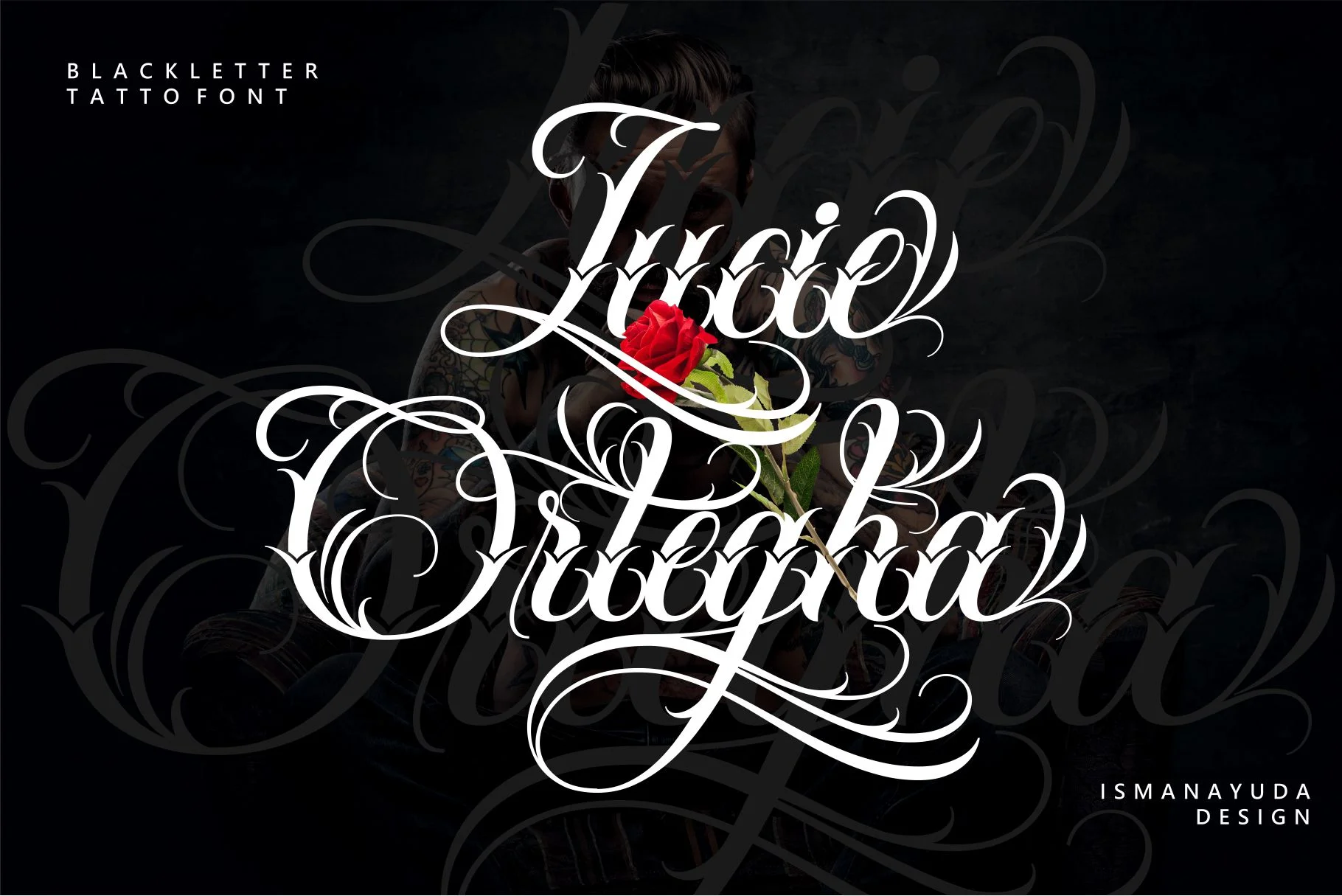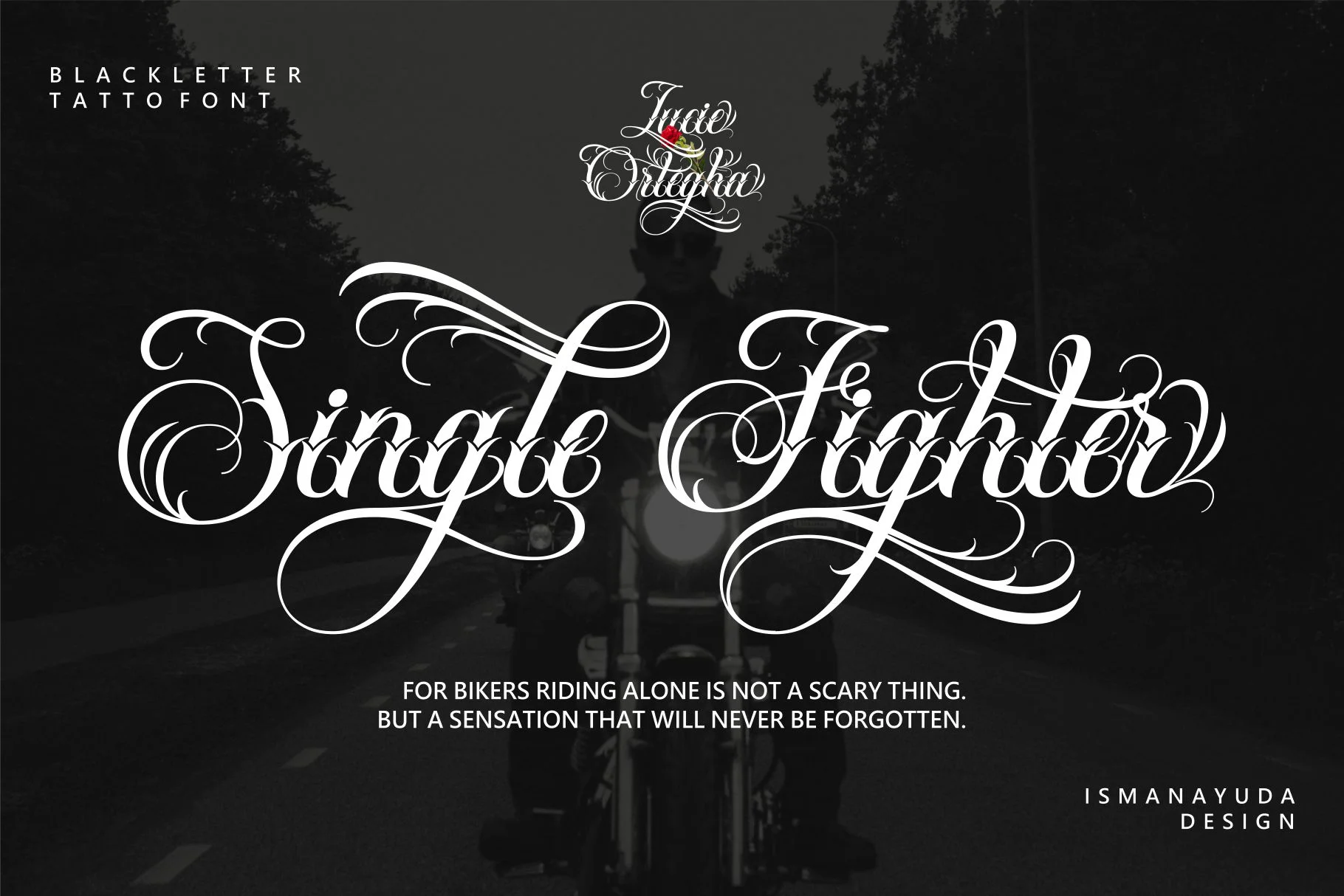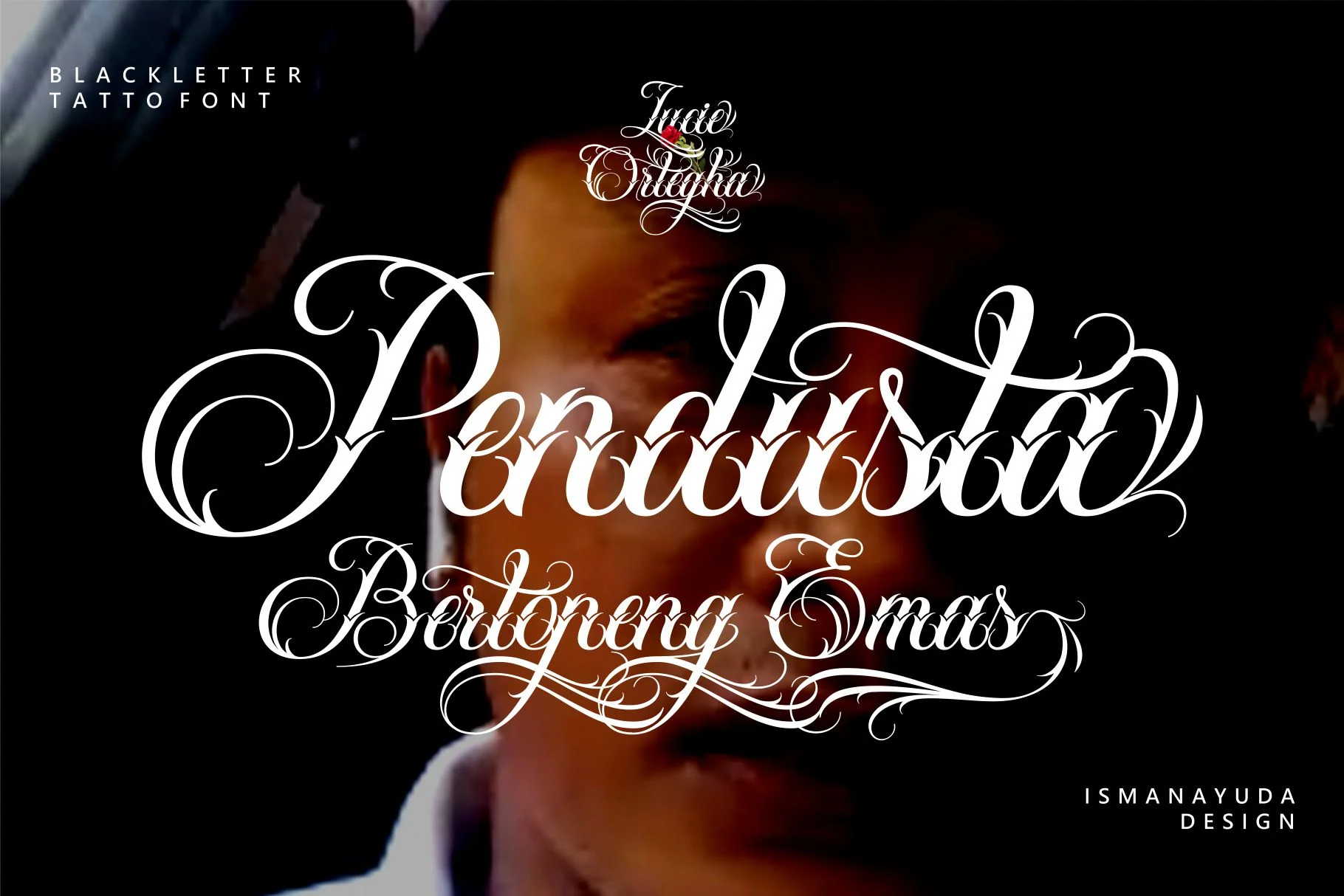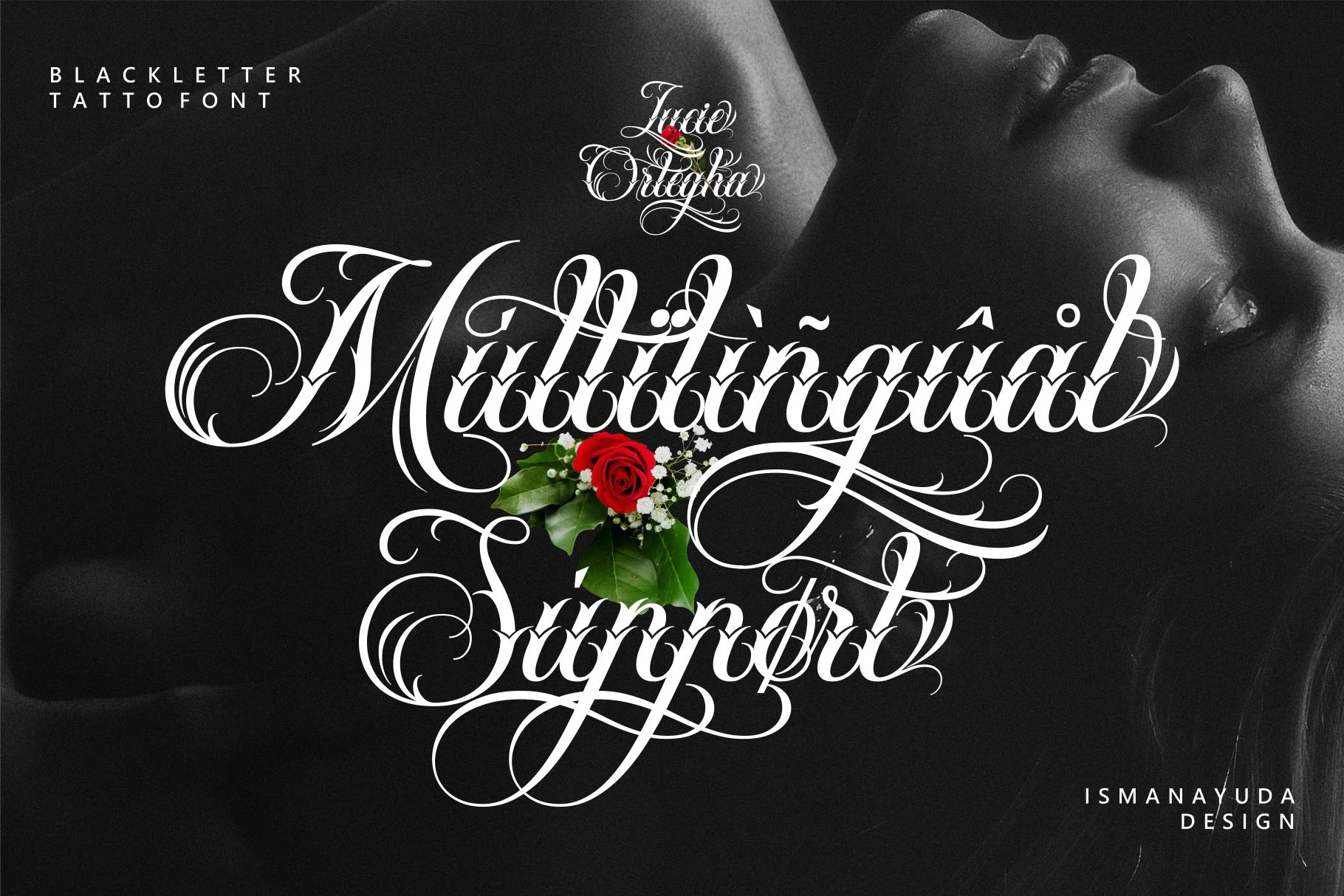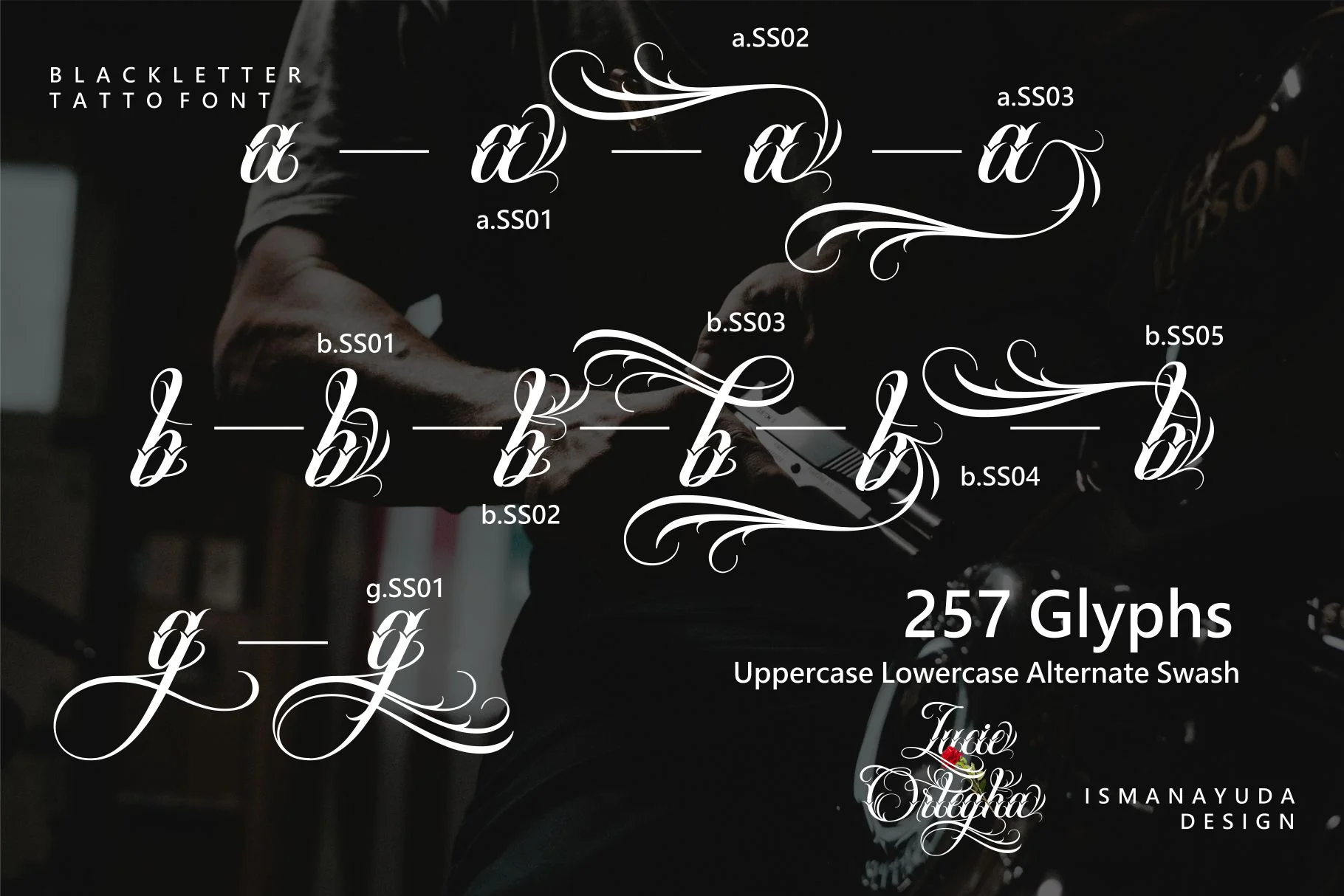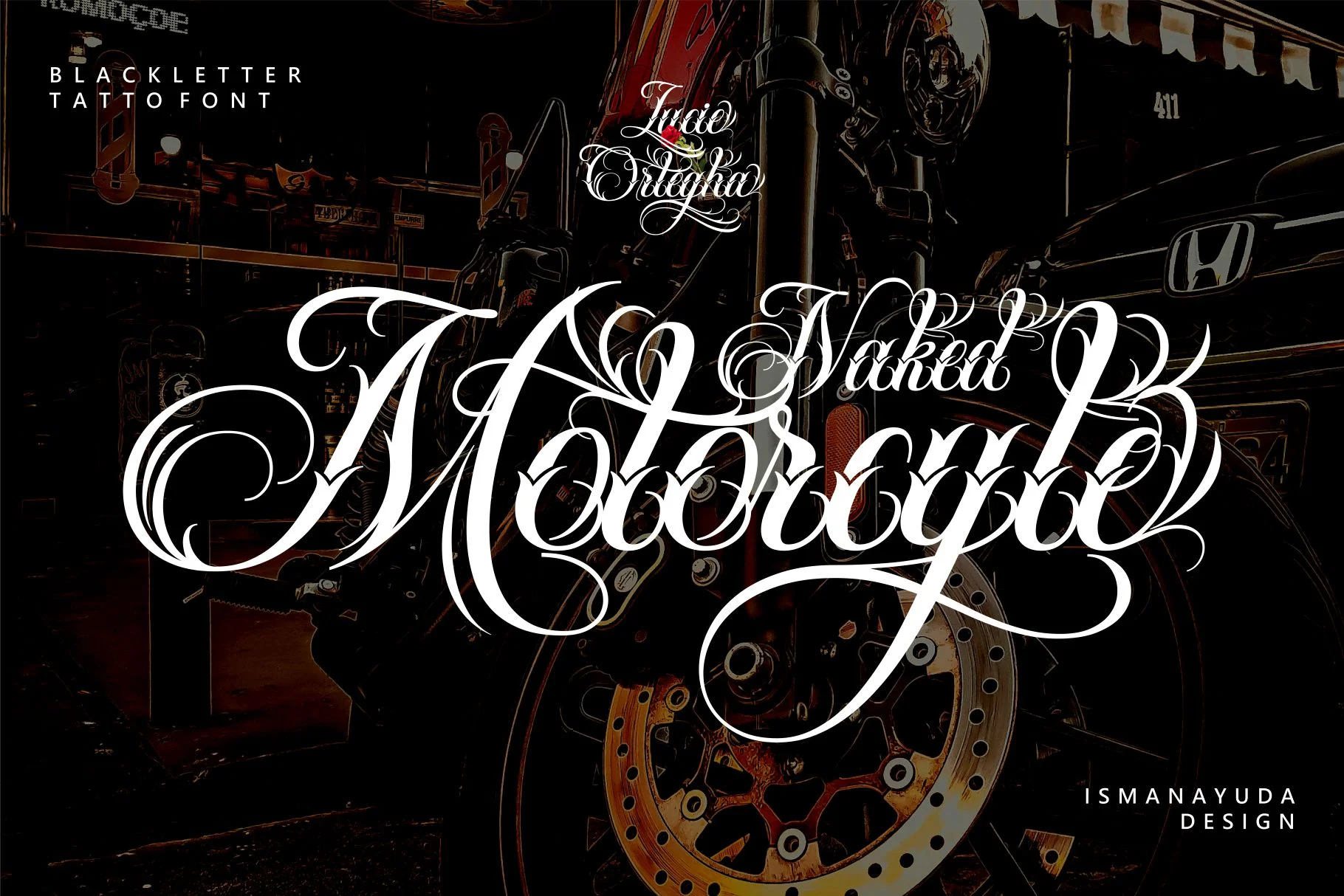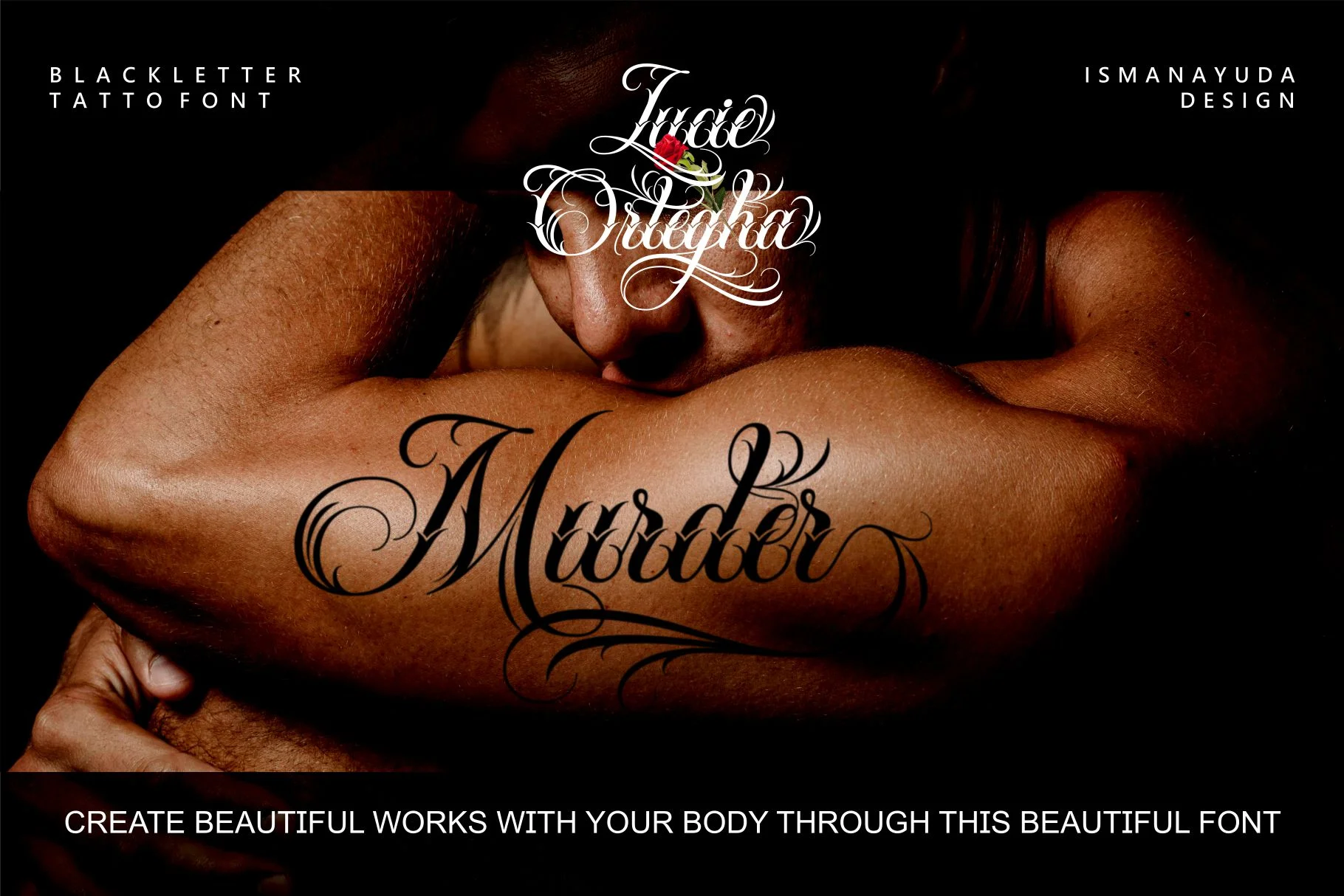
Lucie Ortegha
Lucie Ortegha is a specialized blackletter tattoo font that uniquely blends a script or handwriting style with traditional gothic elements. It is characterized by its high-impact, ornamental design featuring:
- Intricate Swashes: Elegant, sweeping lines that extend from the characters, creating a sense of motion and artistry.
- Ornate Flourishes: Decorative details on the serifs and terminal points that evoke a vintage, Victorian-inspired aesthetic.
- Variable Letterforms: The font includes a large library of 257 glyphs, with up to 5 alternates for each letter, allowing for highly customized and varied text layouts.
This font is specifically designed for high-impact visual branding, making it a popular choice for tattoo studios, band logos, apparel mock-ups, and luxury shop signage.